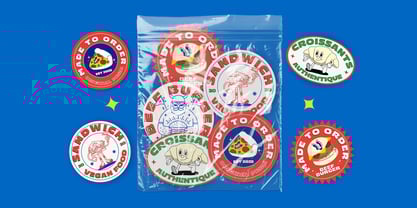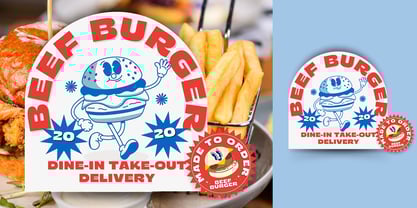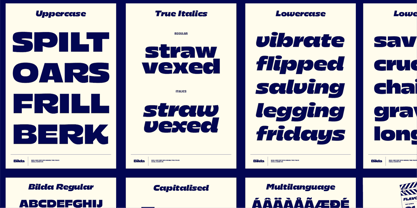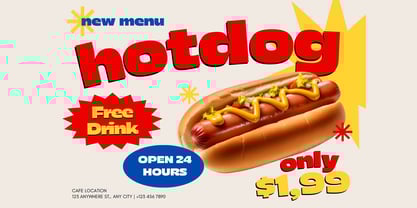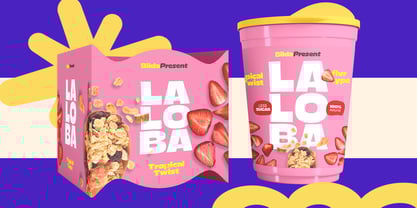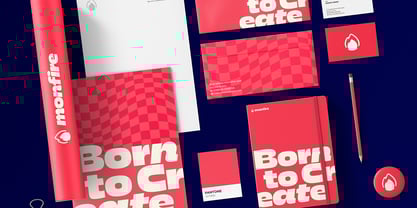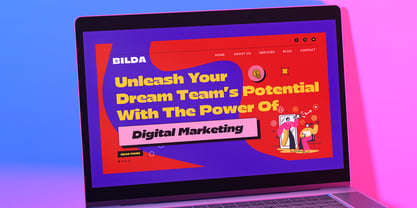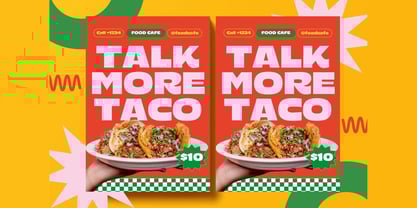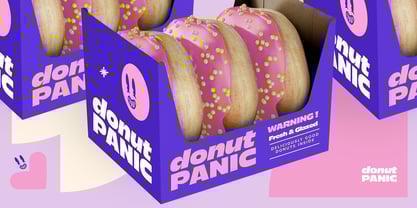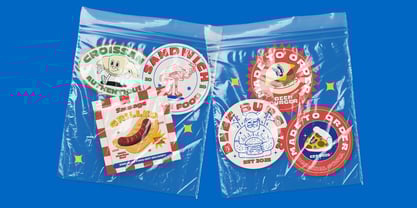
Bilda
Bilda is a heavy bold and charismatic sans-serif typeface with a contemporary edge, designed to
make a statement in any creative project. Its geometric yet playful structure strikes a perfect balance between modernity and approachability.
Features:
Two Styles: Regular and True Italic, with variable italic support to give you precise control over slant
and emphasis.